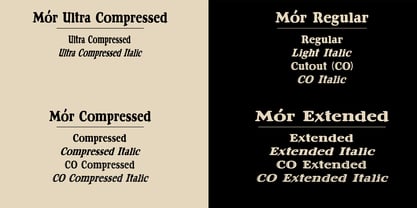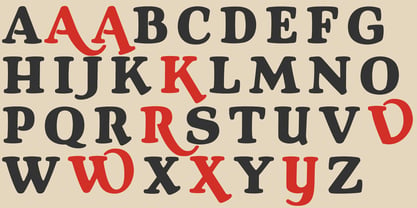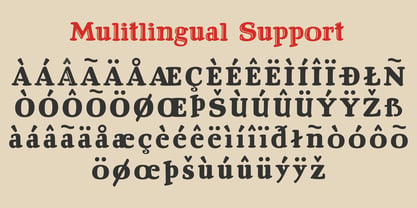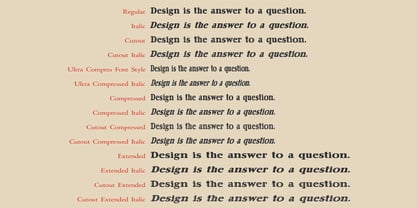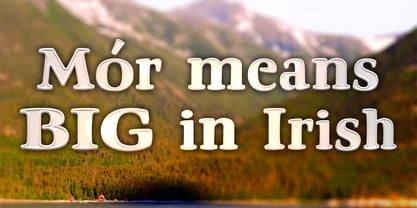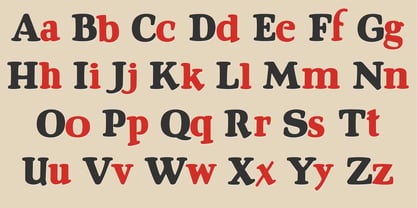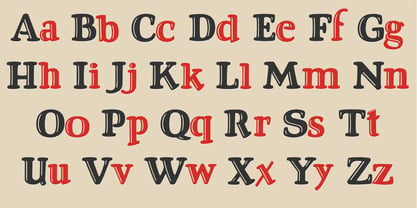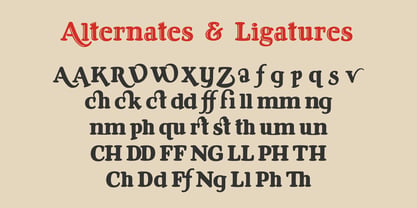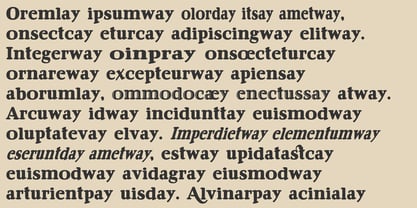
Mor
by designoMatt
The Mor Font Family was designed by Matthew Gallagher and published by designoMatt. Mor contains 14 styles and family package options. More about this family
Mór is the latest release from our foundry, aptly named for “Mór” in Irish means BIG and this is a super-sized serif suitable for brand work, logos, and displaying some emphasis in typesetting. There is the standard font in compressed, regular, and extended versions as well as a limited version of the glyphs with cutouts (CO). However, there is no CO version in the ultra compressed because the cutouts tended to disappear or disrupt the letterforms.
The focus on this font was the size and scale with some elegance to the copy. There is a complete extended Latin character set as well as ample alternates, ligatures, and Welsh characters.
Designers: Matthew Gallagher
Foundry: designoMatt